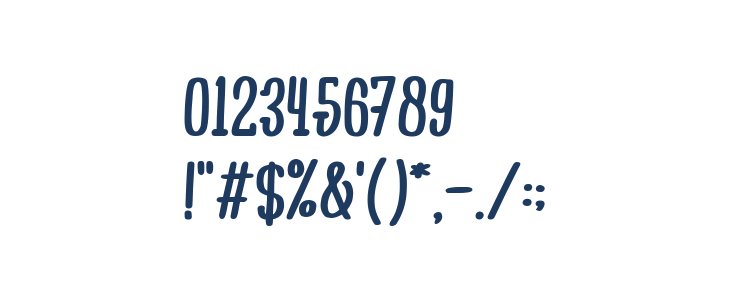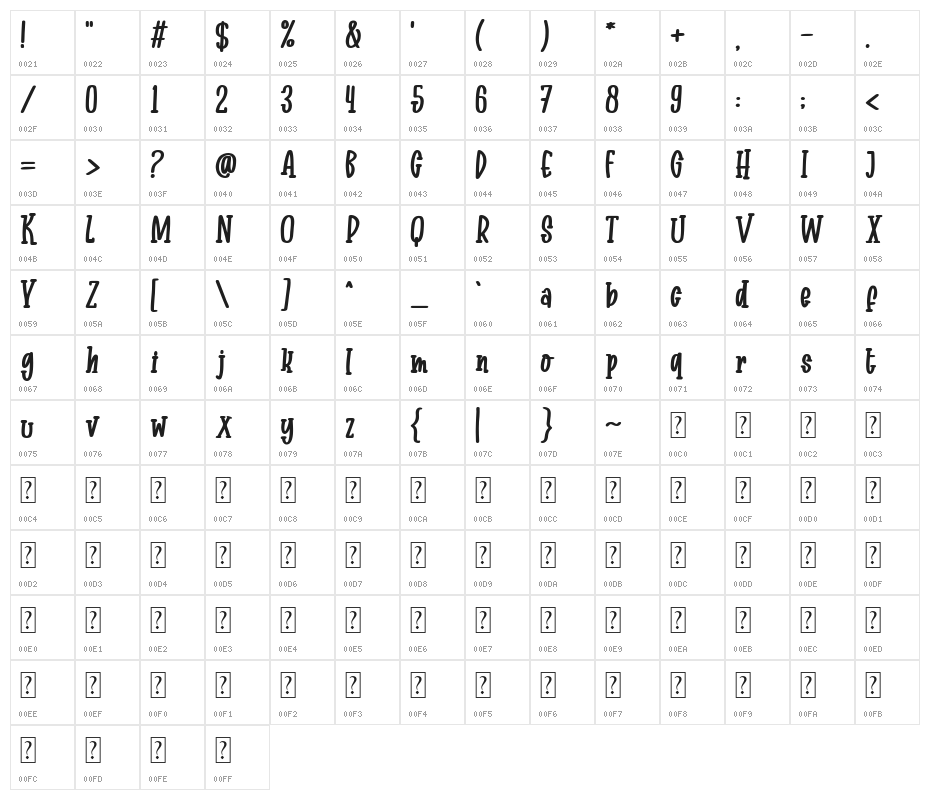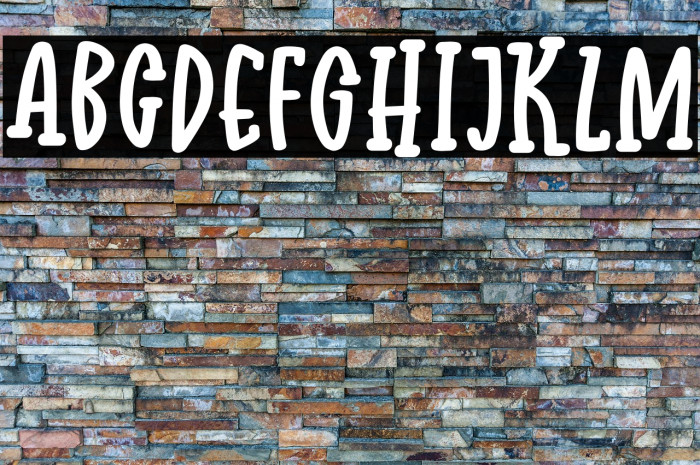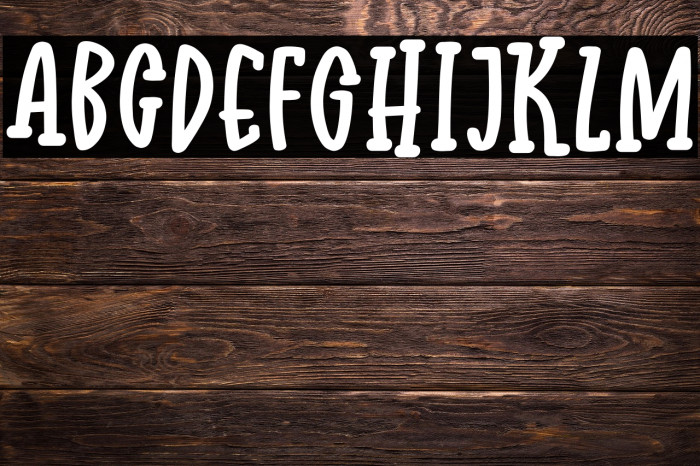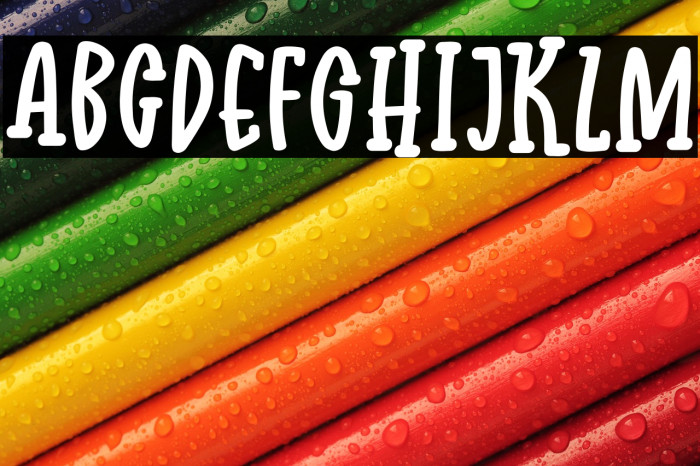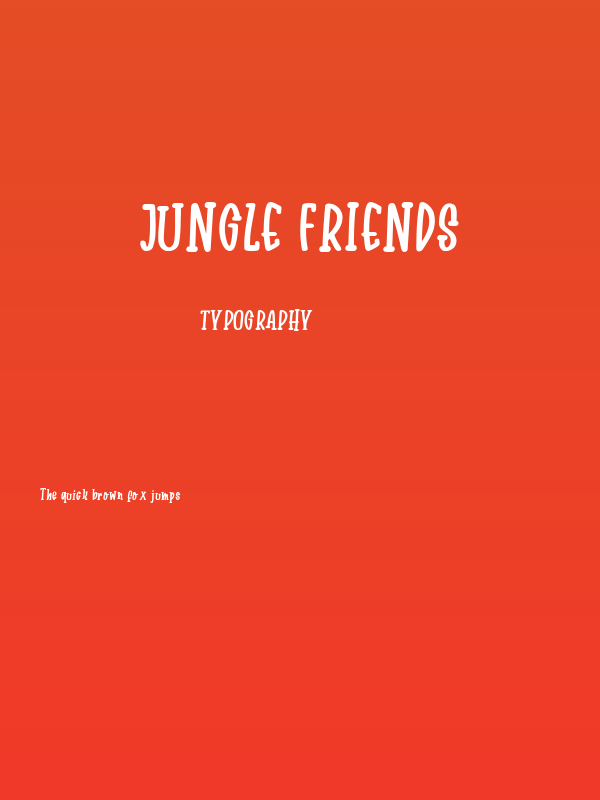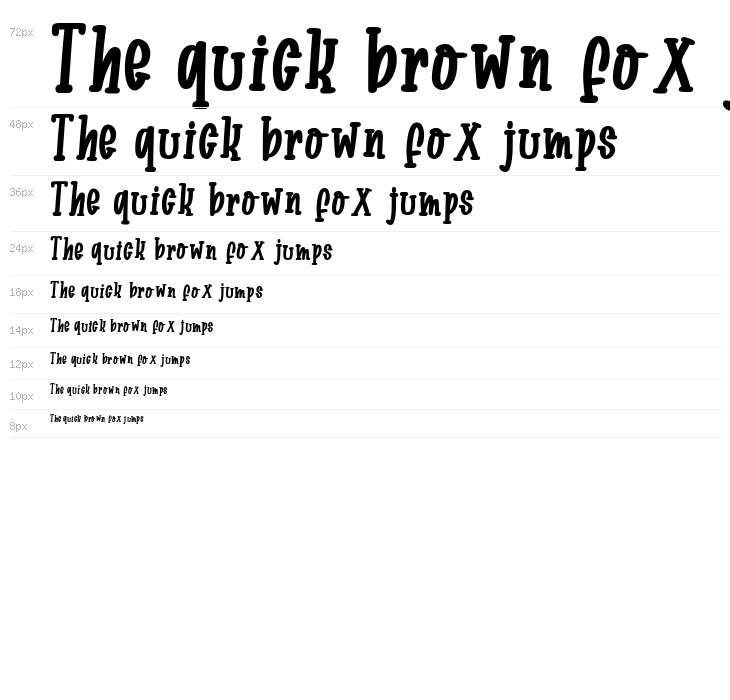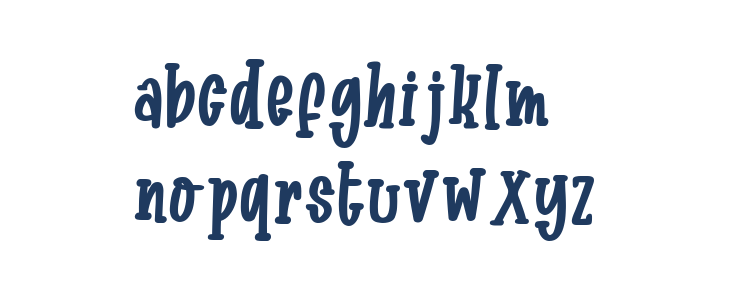
Jungle Friends Font
Jungle Friends Description
This playful and whimsical font features bold, rounded characters with a hand-drawn aesthetic. The uppercase and lowercase letters are consistent in their playful style, with slight variations that add a unique charm. The numbers and special characters maintain this cohesive look, making the font versatile for various creative projects. Its bold strokes and rounded edges give it a friendly and approachable feel, ideal for designs that require a touch of fun and creativity. The font's style is reminiscent of hand-lettering, making it suitable for projects that aim to convey a personal and informal tone.
| Proposed Projects | Ideal for children's books, playful branding, greeting cards, and creative posters. |